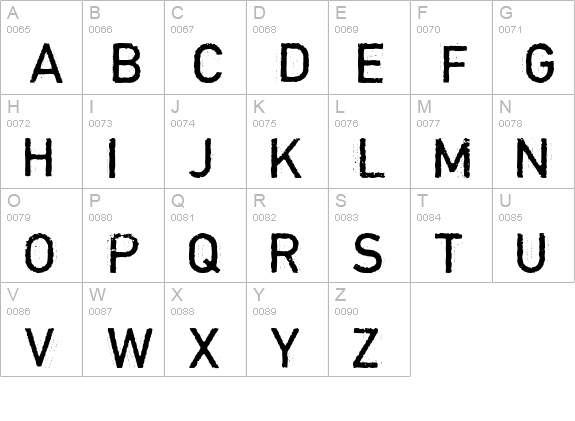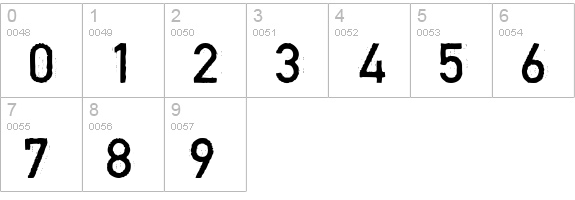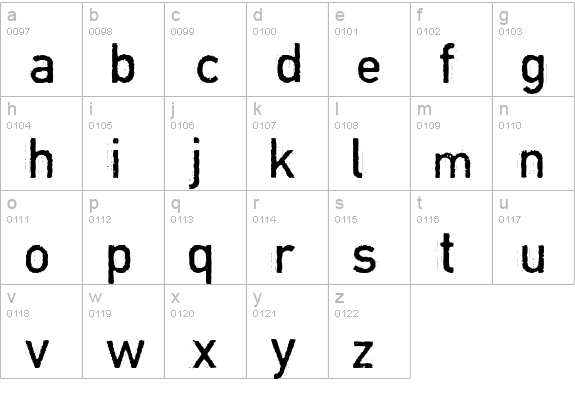
Copystruct Normal Font Details
Copystruct Normal is the standard, neutral variant in the Copystruct typeface family \xE2\x80\x94 well suited to general body text, paragraphs, and standard typographic work.
Copystruct Normal font is a versatile and modern typeface that is perfect for a wide range of design projects. With its clean lines and balanced proportions, this font exudes a sense of professionalism and sophistication. Whether you are designing a logo, creating a website, or working on a print project, Copystruct Normal font will add a touch of elegance to your work. The best part? Copystruct Normal font is completely free to download at FontsMarket.com. This means you can access this high-quality font without any cost, making it a fantastic option for both personal and commercial use. Don't miss out on the opportunity to enhance your design projects with the sleek and stylish Copystruct Normal font – download it today and take your designs to the next level!